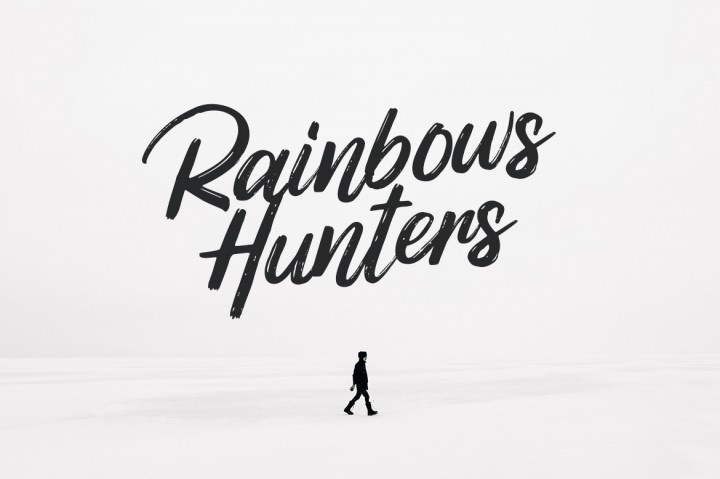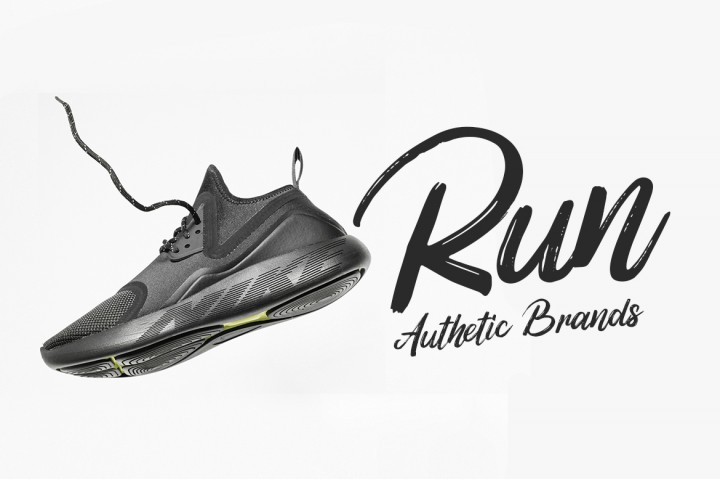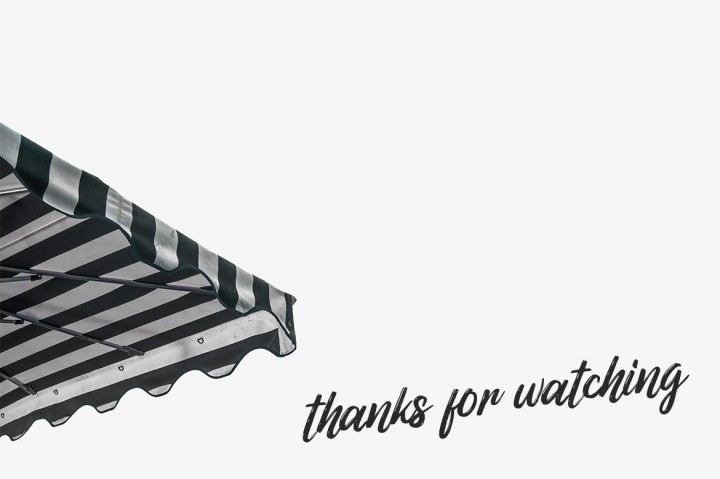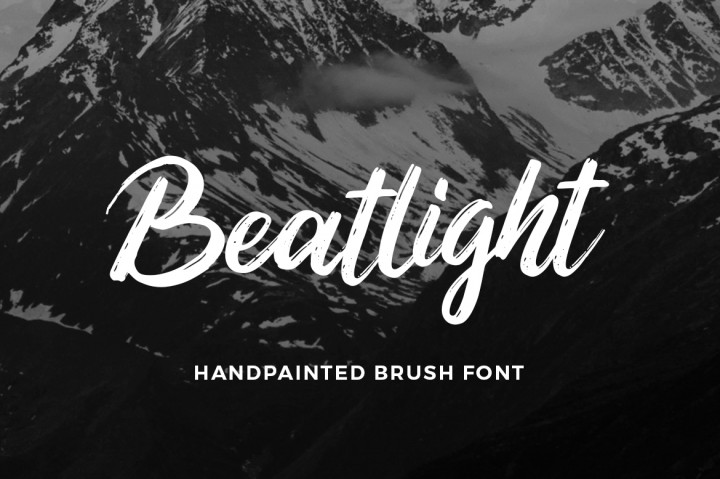
Beatlight Brush Font
A rustic, dapper handwritten font with a personal charm. With quick dry strokes and a signature style, Beatlight is perfect for branding projects, homeware designs, product packaging – or simply as a stylish text overlay to any background image.